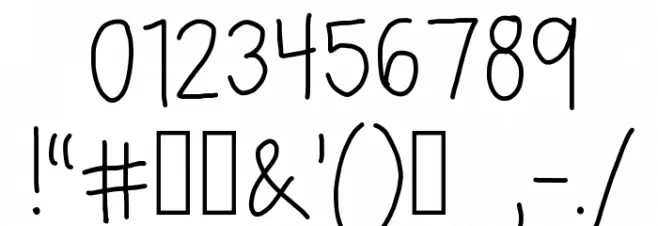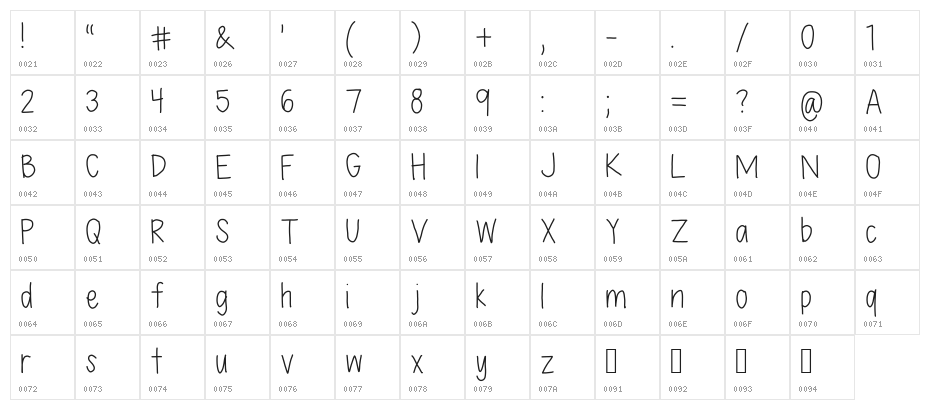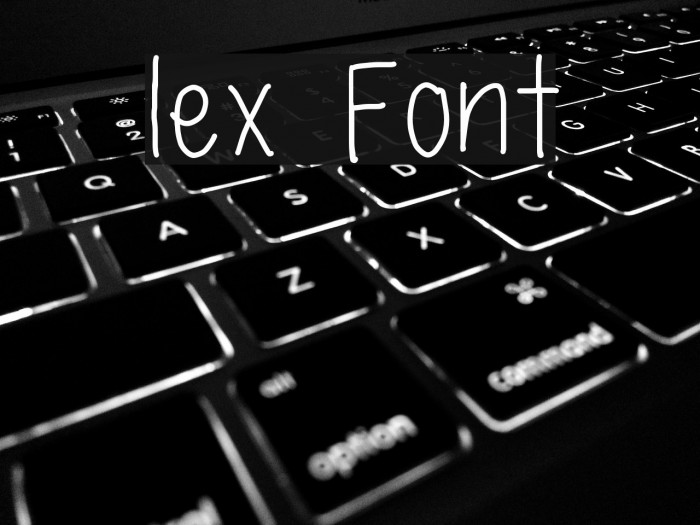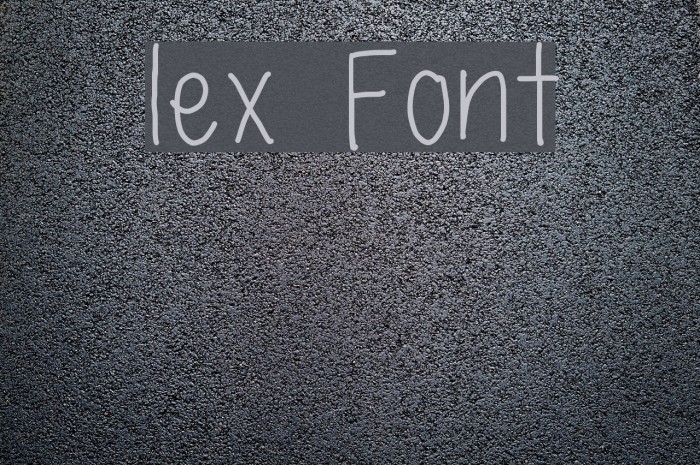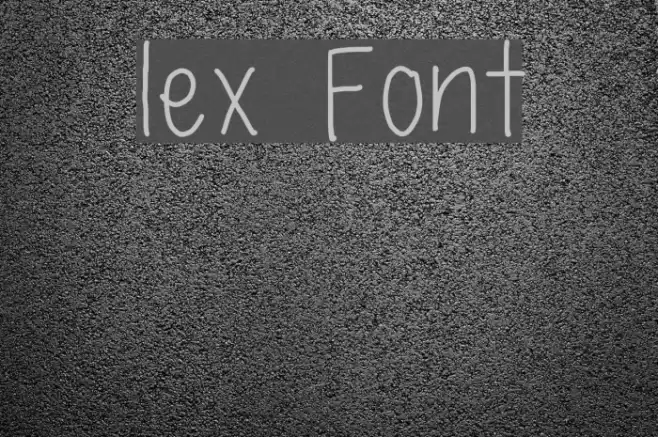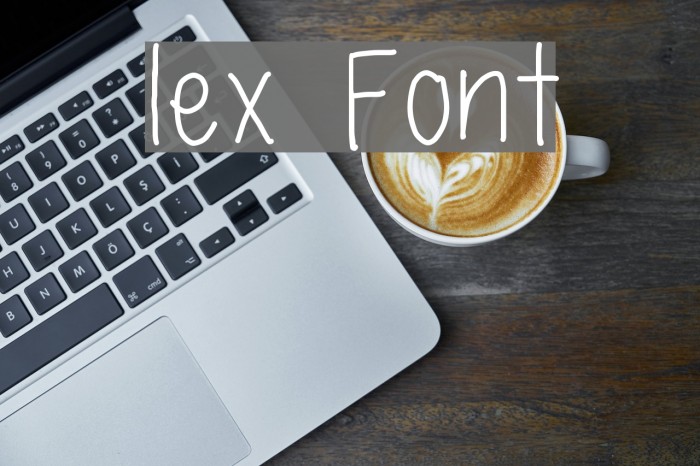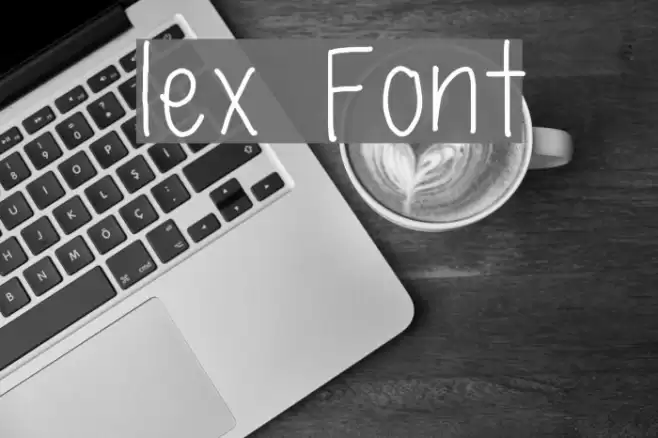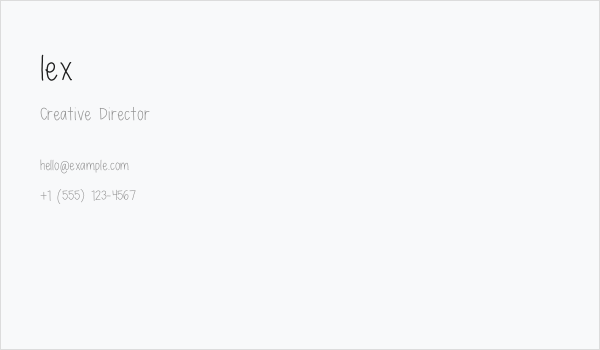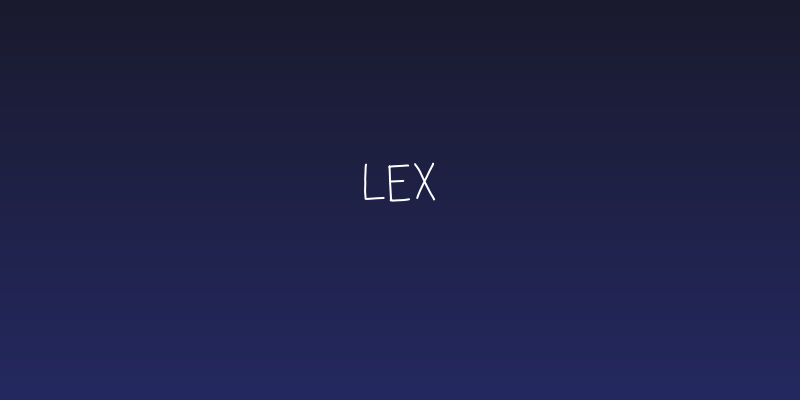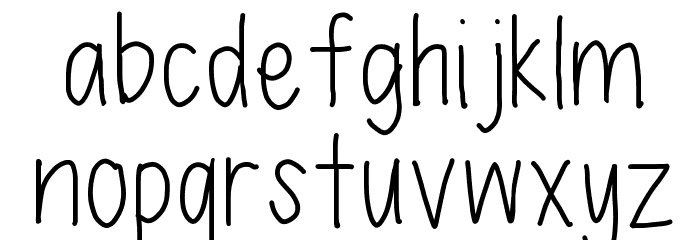
lex Font
lex Description
This font features a playful and casual handwritten style, characterized by its tall, narrow letters and slightly uneven strokes. The uppercase and lowercase letters maintain a consistent height, giving it a uniform appearance. The numerals are clear and easy to read, matching the overall informal aesthetic. Special characters are included, adding versatility for various uses. The font's simplicity and charm make it suitable for projects that require a personal touch, such as invitations, greeting cards, or playful branding materials.